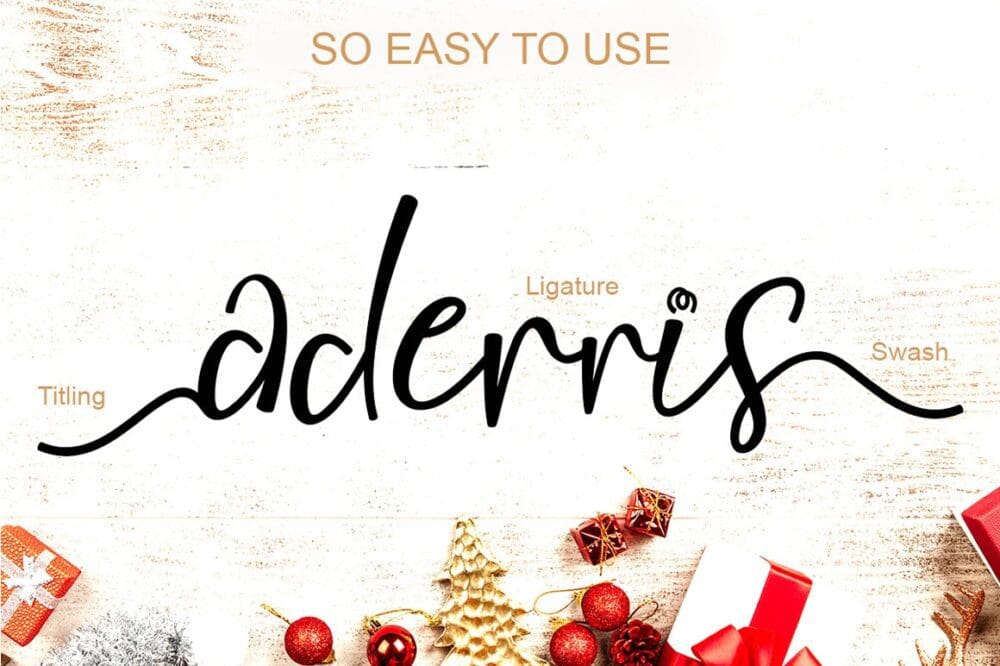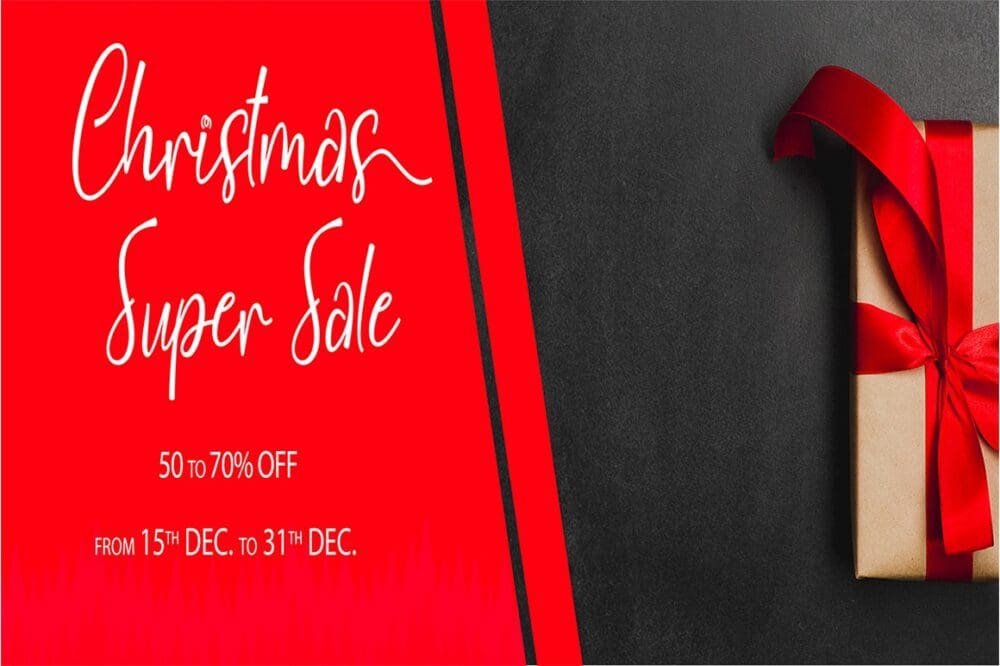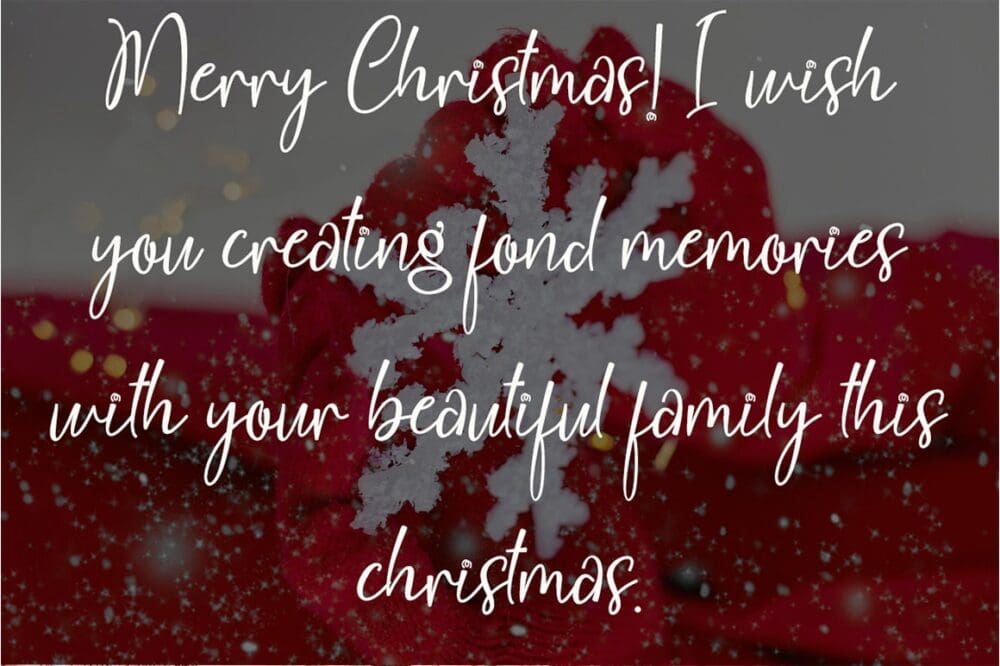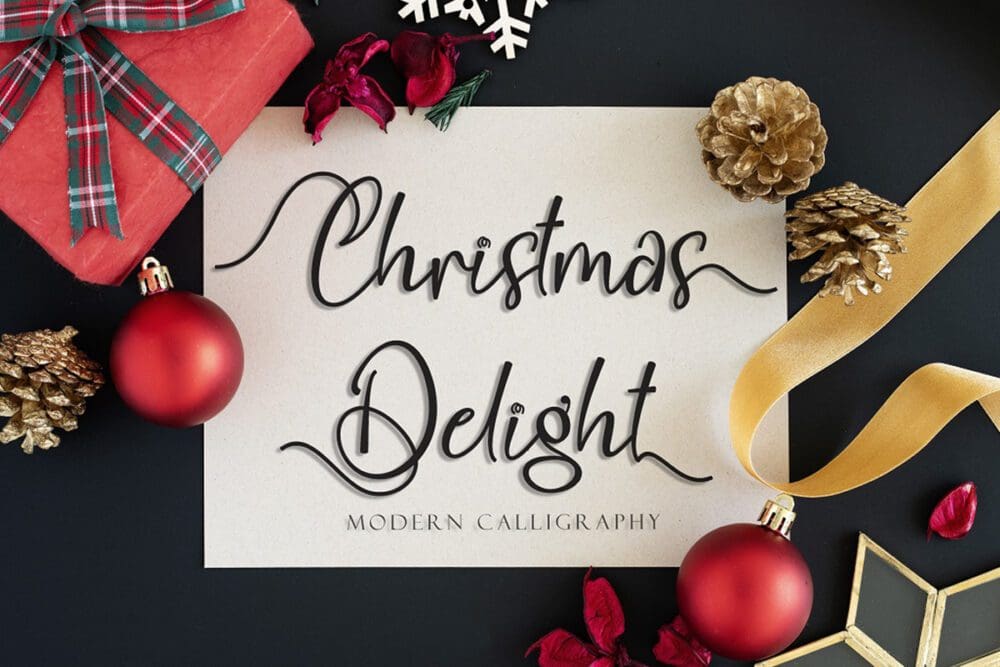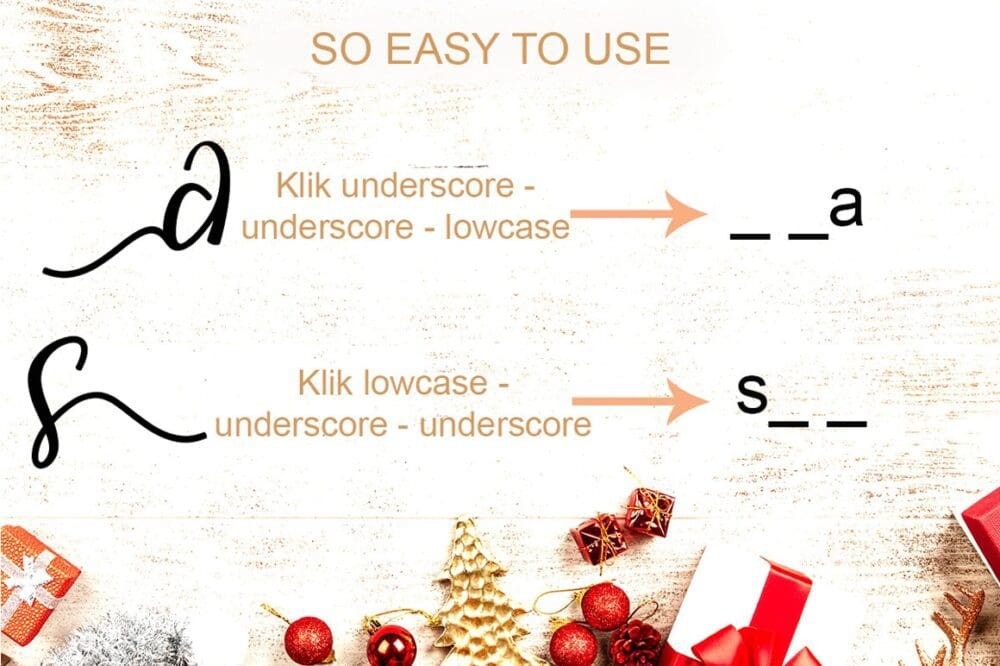
Christmas Delight Font
This special Christmas delight font is very unique, made with a happy feeling to welcome the arrival of Christmas. This font is perfect for making Christmas greeting cards, quotes, social media uploads, Christmas promotions, new year greetings, valentine’s, weddings, invitations, birthdays, and many others.